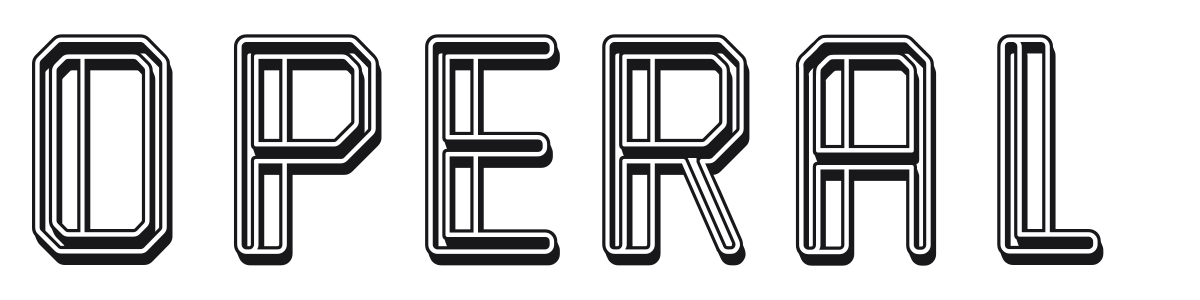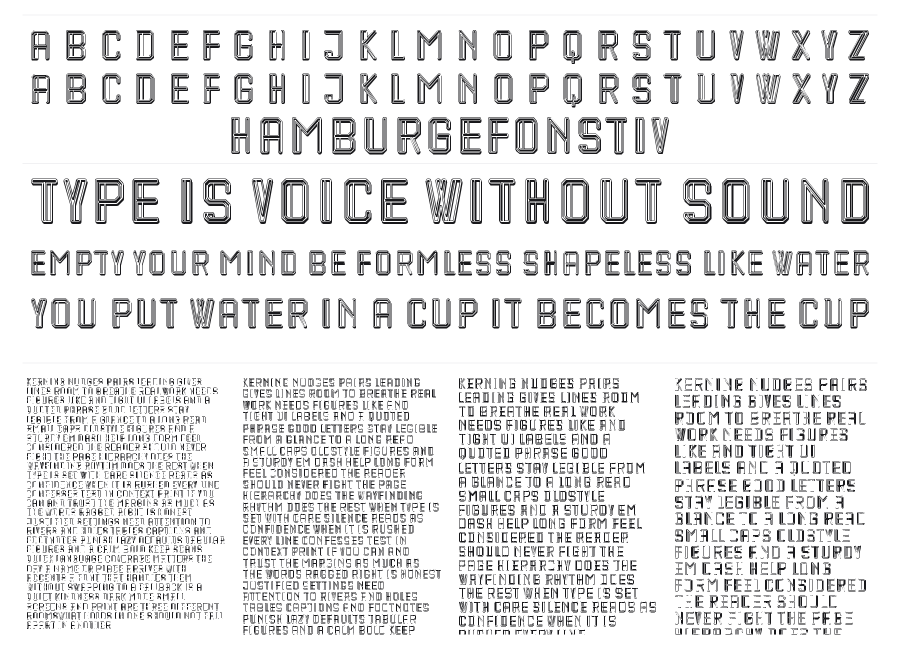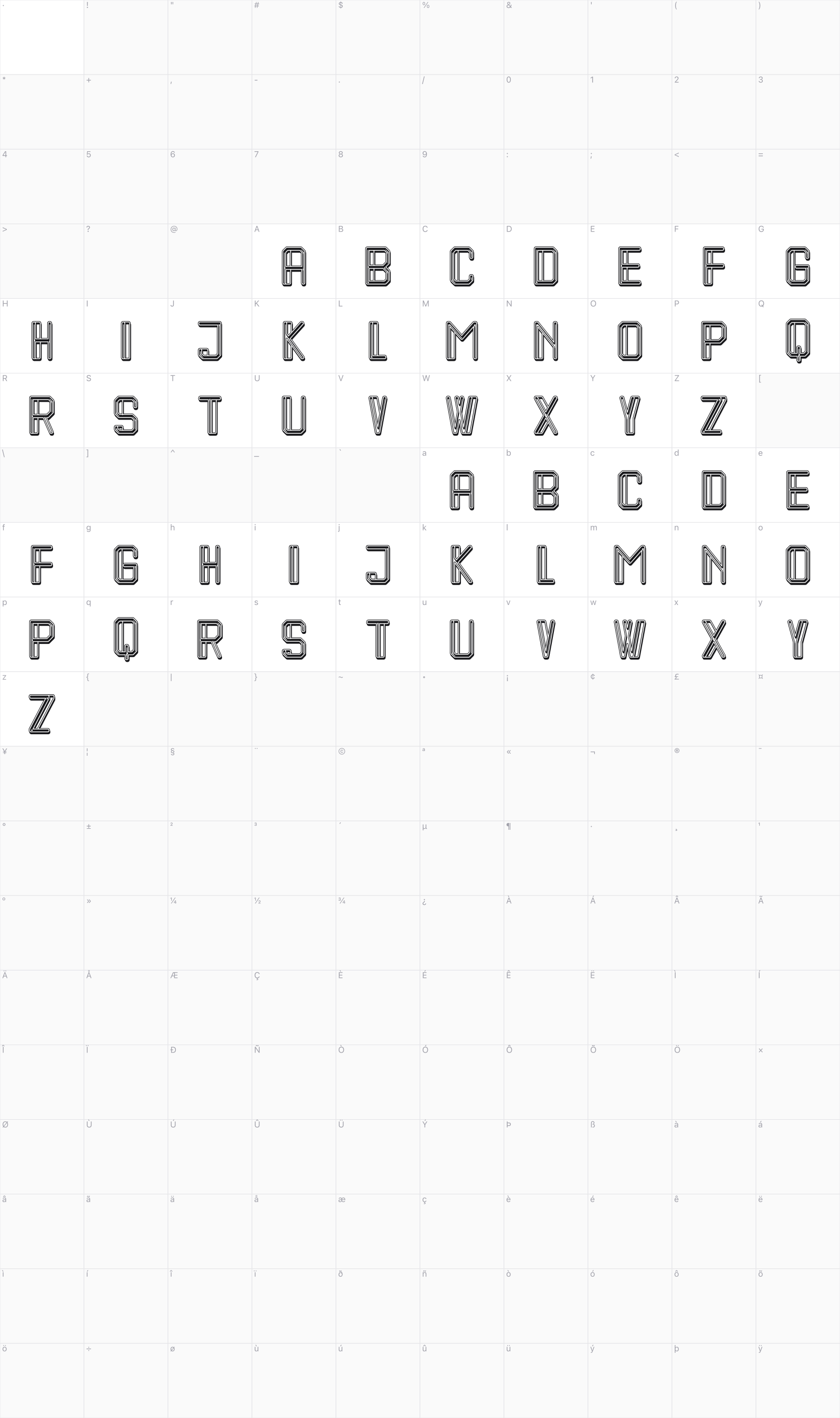
Operal
Operal is a bold condensed geometric sans with a layered inline treatment that gives each character a dimensional, engraved quality. The multiple parallel stroke outlines and softly rounded corners evoke mid-century theater marquees and Art Deco signage. It commands attention at large sizes and brings a sense of theatrical glamour to any headline.